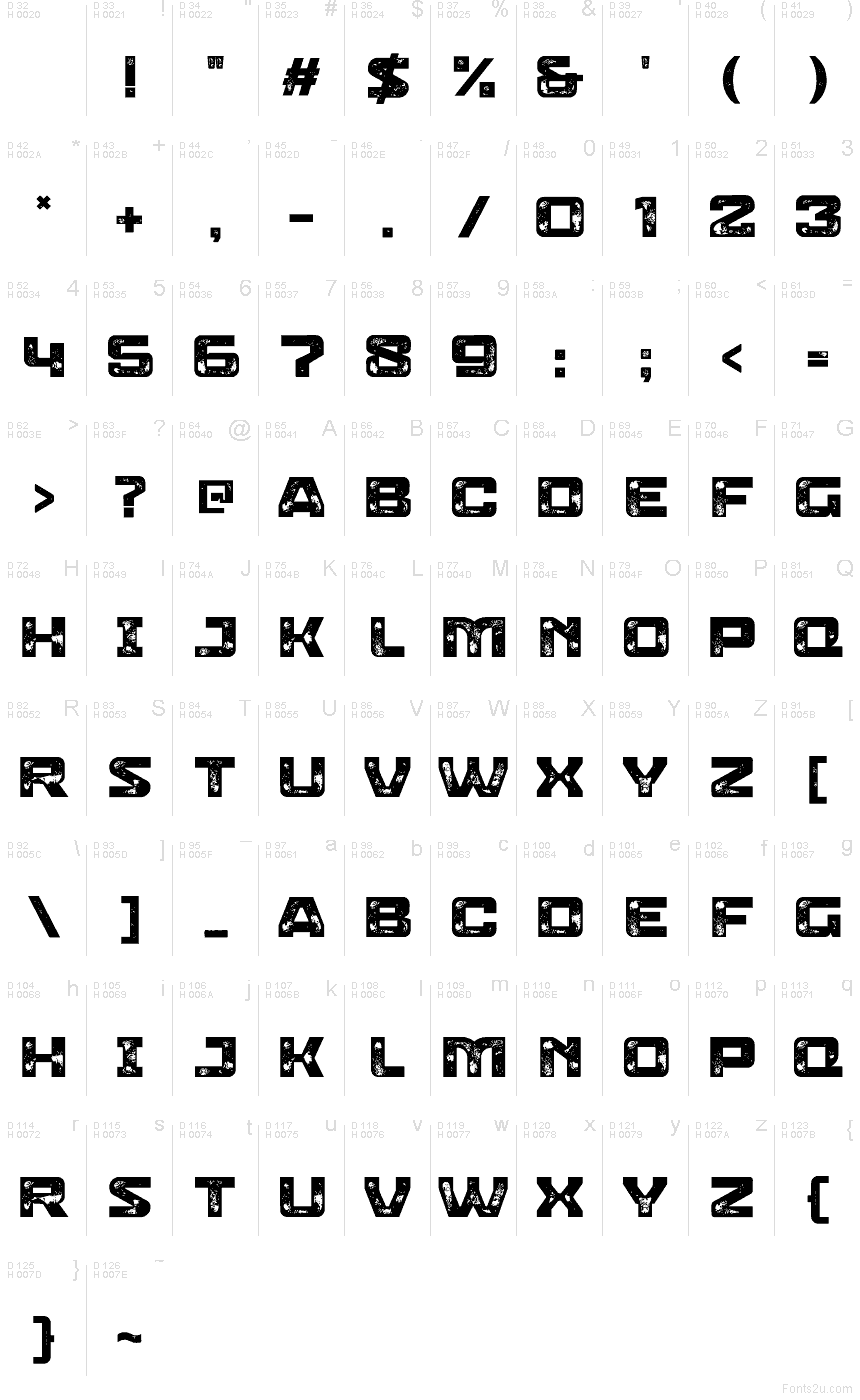
Marine Corps Personal Used
Marine Corps font by Mocha Frappuccino is a free eroded display typeface with the grit turned all the way up. Heavy block letters are punched through with stencil cuts and chipped edges, like paint flaking off a steel crate or numbers sprayed on the side of a weather-beaten vehicle. The texture feels raw and scuffed, giving headlines instant attitude without needing extra graphic effects.
Using Marine Corps, you can brand tactical sports, military-themed games, survival gear, action movie posters, grunge gig flyers, and airsoft or paintball events with a consistent, rugged voice. This free font thrives when set large and bold, letting the distressed shapes stay legible while still looking battle-worn. Pair Marine Corps with a clean geometric sans for body copy to keep the message tough but readable.